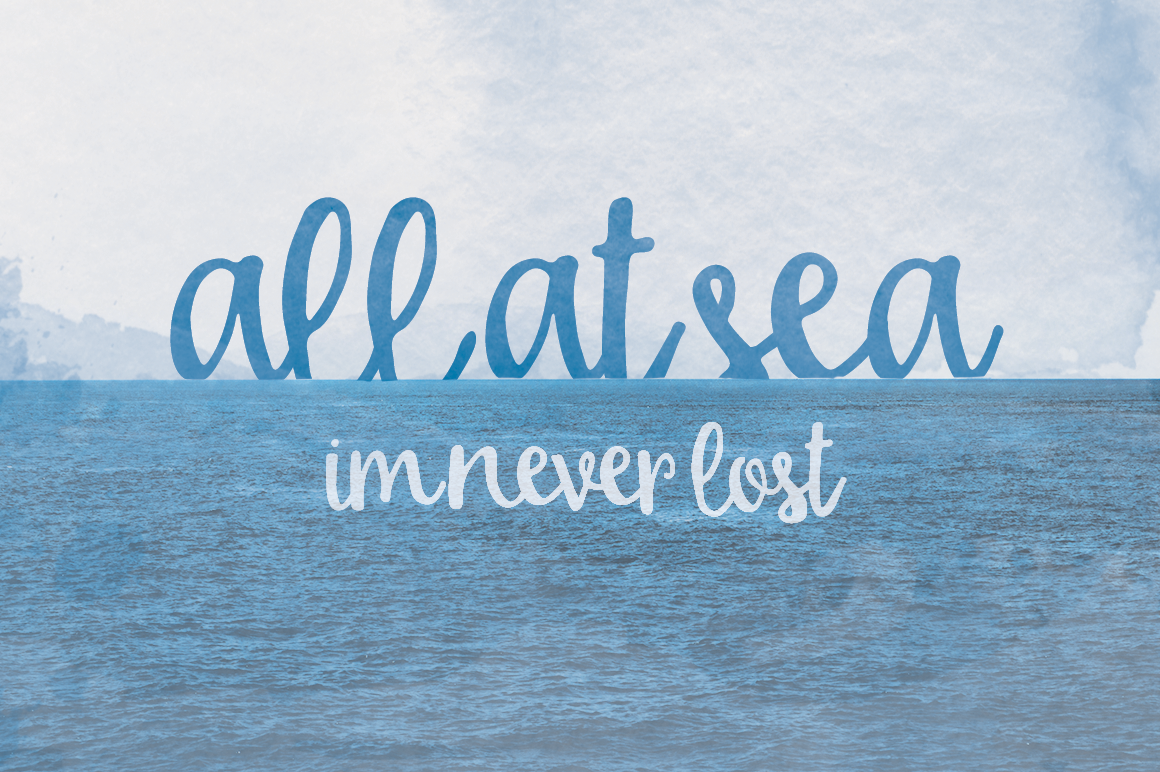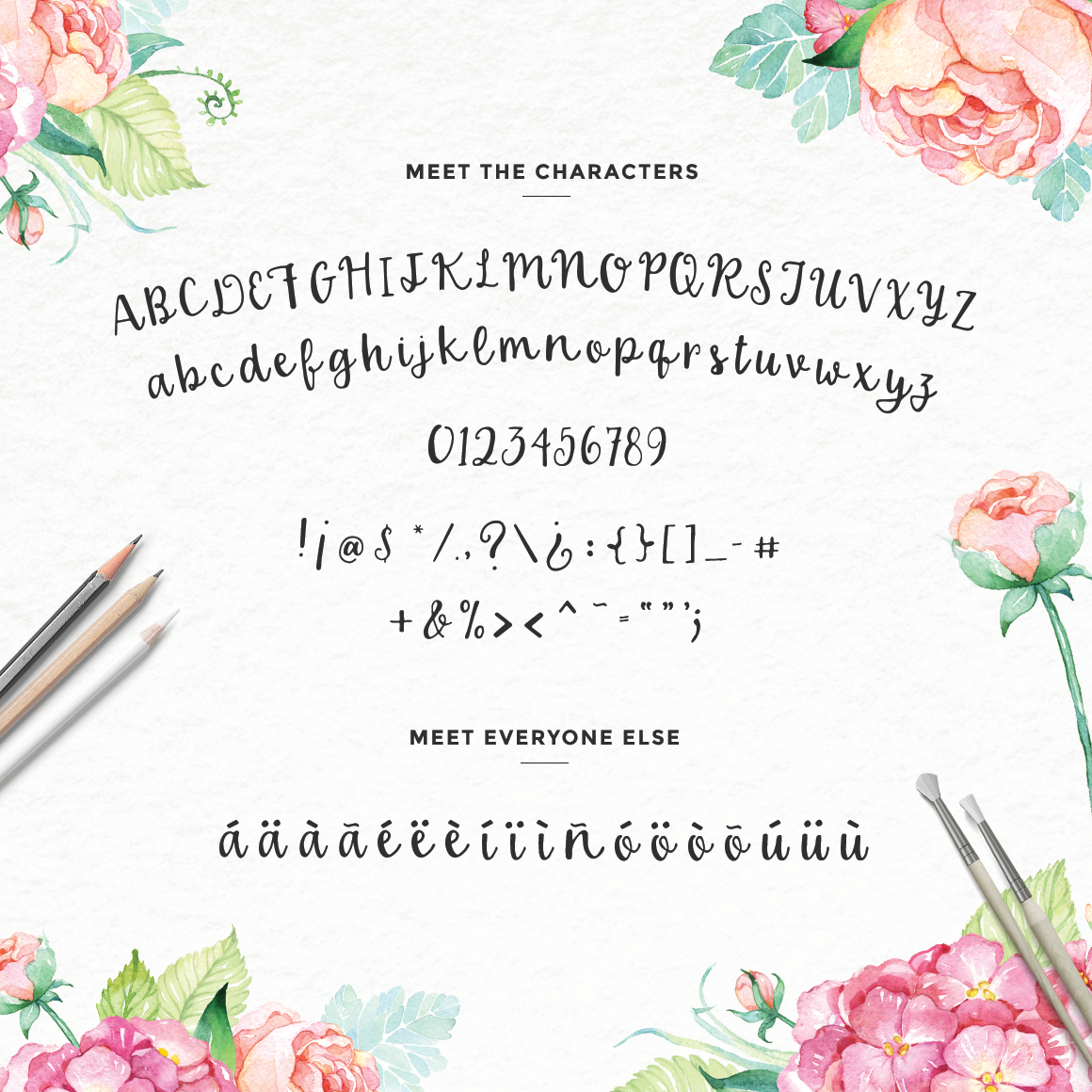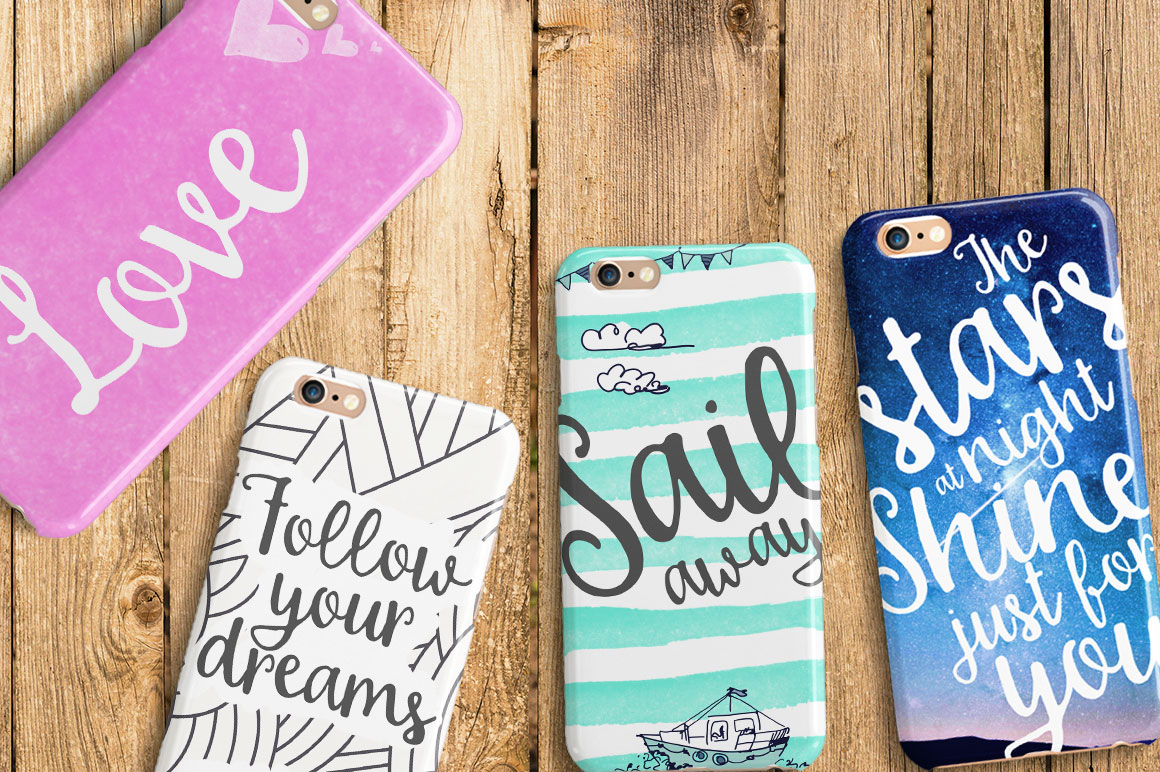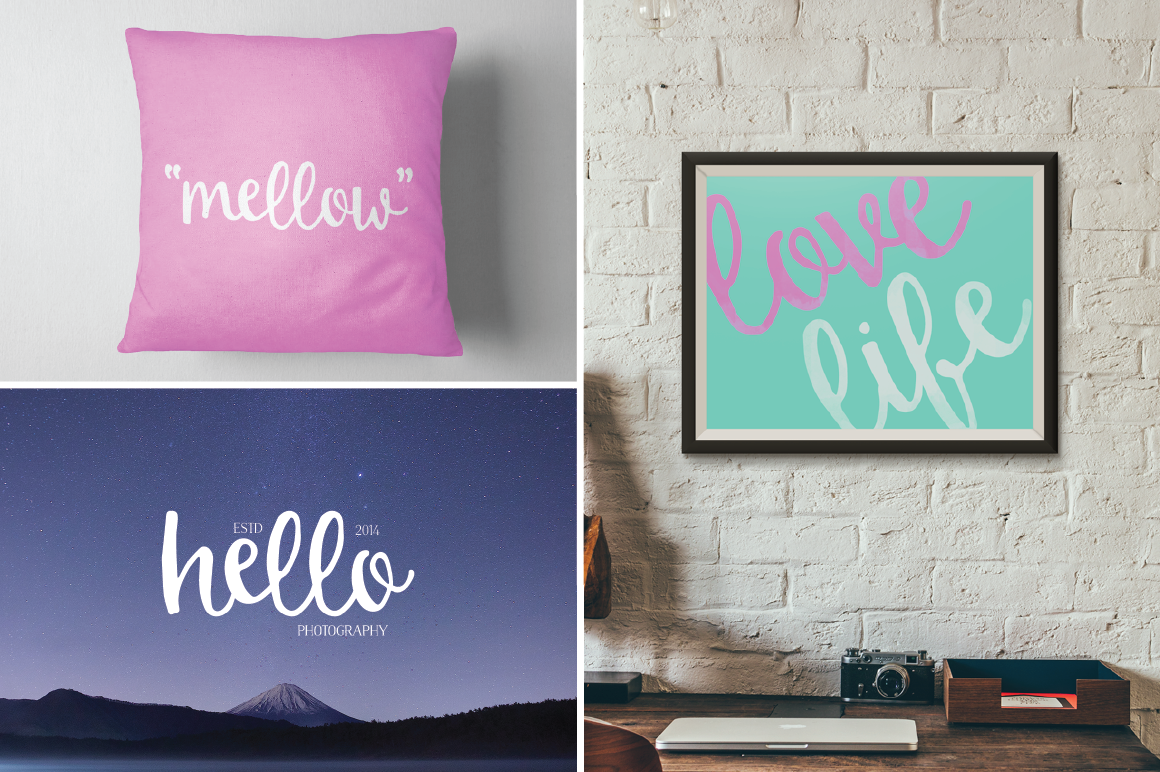
About Silly Me Font
Silly Me is a hand painted brush script typeface.
Including over 115 different hand drawn characters for a range of languages and dialects. This script is stylish and classic, making it appropriate for a wide range of projects.